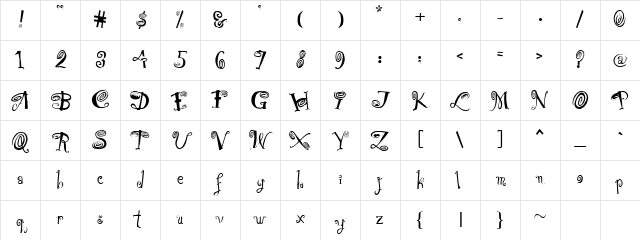
HipnOtik Normal Free Font
HipnOtik Normal
HipnOtik Family
Complete HipnOtik Normal glyph index. Displaying only characters natively supported by HipnOtik Normal font.
Design Context for HipnOtik
HipnOtik is a composed and adaptable typeface that performs quietly and consistently across a wide range of design contexts.